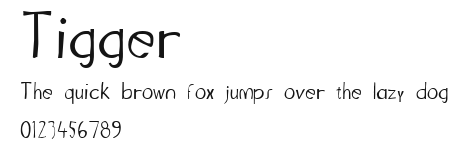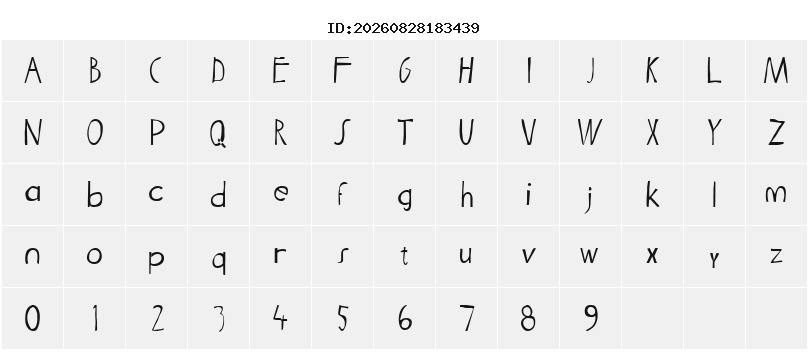
Tigger Preview
• Font Name: Tigger
• Full Font Name: Tigger
About Tigger.ttf
Tigger.ttf is a modern, elegant sans-serif font designed for ultimate readability and visual harmony. Perfect for branding, headlines, web design, and print materials.